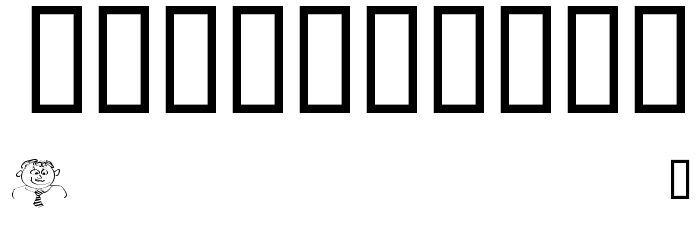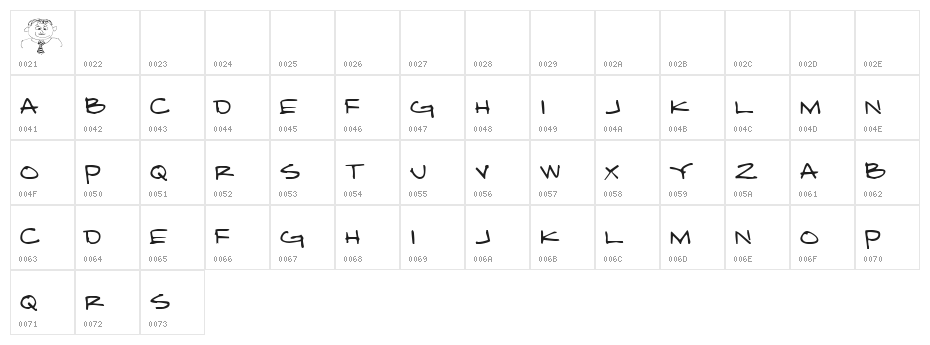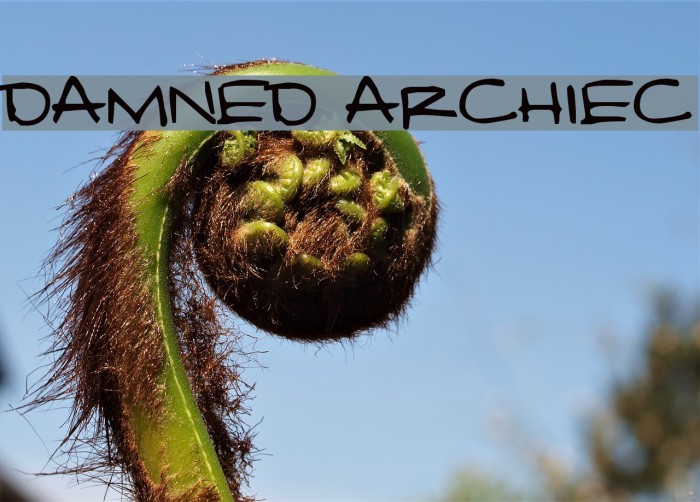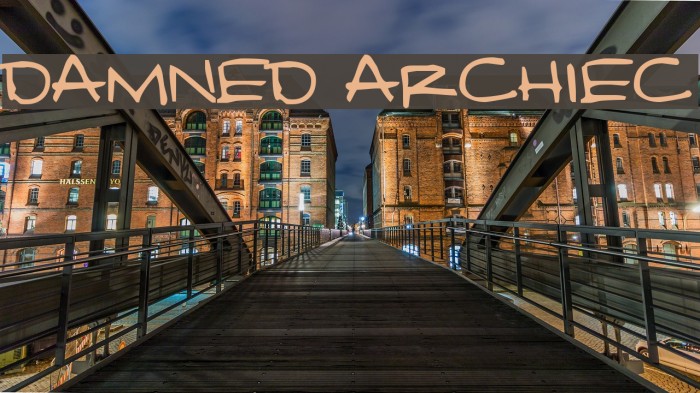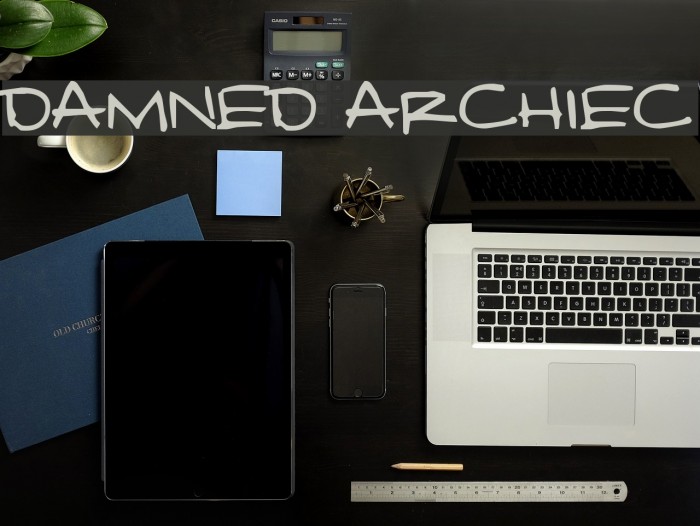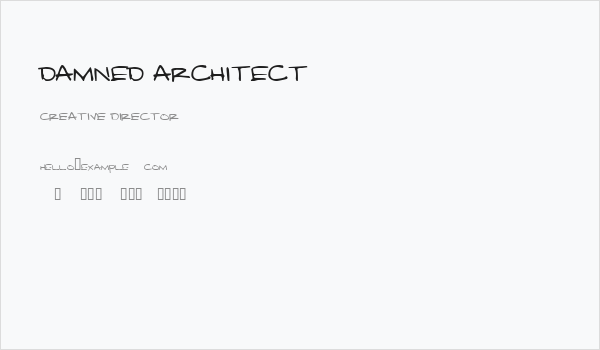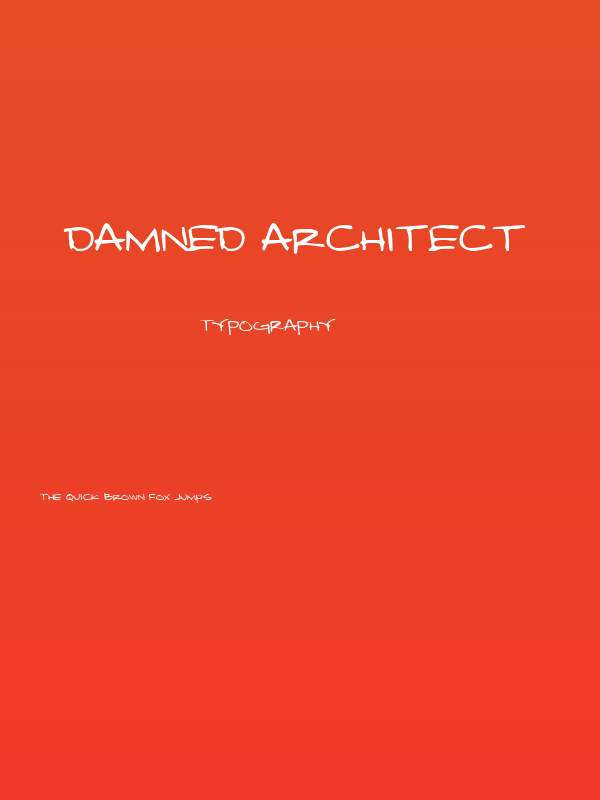
Damned Architect Font
Damned Architect Description
This font features a bold, handwritten style with a playful and casual appearance. The uppercase letters are slightly irregular, giving it a natural, hand-drawn look. The strokes are thick and consistent, providing a strong visual impact. The lowercase letters maintain the same playful style, with a slight slant that adds to the informal feel. The numbers and special characters are designed to match the overall aesthetic, ensuring consistency throughout. This font is ideal for projects that require a personal touch or a creative flair.
| Use Case | Headlines, Creative projects, Informal designs |
| Proposed Projects | Great for greeting cards, posters, children's books, and creative branding. |